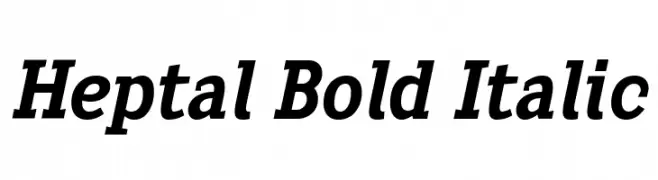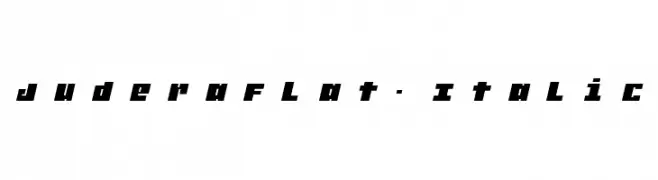
( deFharo - Fernando Haro - defharo.com )
A bold, decorative font with bifurcated serifs and intricate designs.
( deFharo - Fernando Haro - defharo.com )
A decorative bifurcated font with a bold, Western-inspired style.
( deFharo - Fernando Haro - defharo.com )
A modern serif font with clean lines and balanced proportions.
( deFharo - Fernando Haro - defharo.com )
A clean and elegant serif font with thin, uniform strokes and subtle curves.
( deFharo - Fernando Haro - defharo.com )
A bold slab serif font with strong, block-like serifs and consistent stroke width.
( deFharo - Fernando Haro - defharo.com )
A bold, serif font with strong, uniform strokes and pronounced serifs.
( deFharo - Fernando Haro - defharo.com )
A bold serif font with strong strokes and pronounced serifs, perfect for impactful designs.
( deFharo - Fernando Haro - defharo.com )
A bold, italicized font with strong strokes and a dynamic slant.
( deFharo - Fernando Haro - defharo.com )
A bold, pixelated font with a retro digital aesthetic.
( deFharo - Fernando Haro - defharo.com )
A bold, italic, and geometric font with a modern and edgy style.